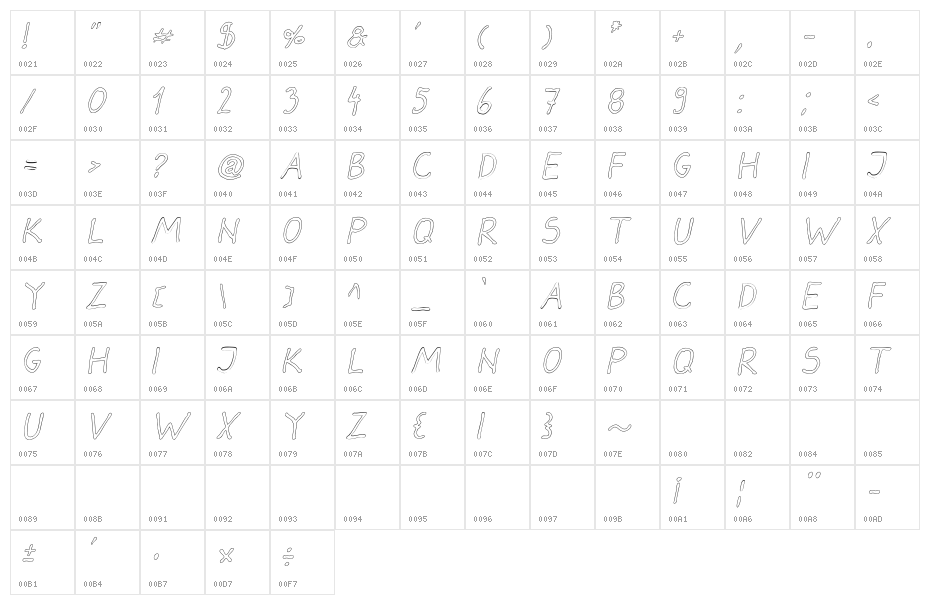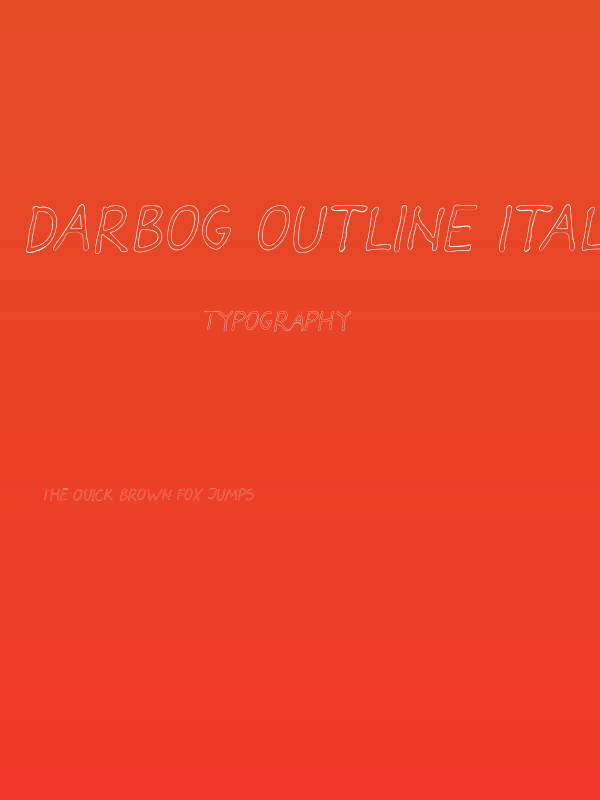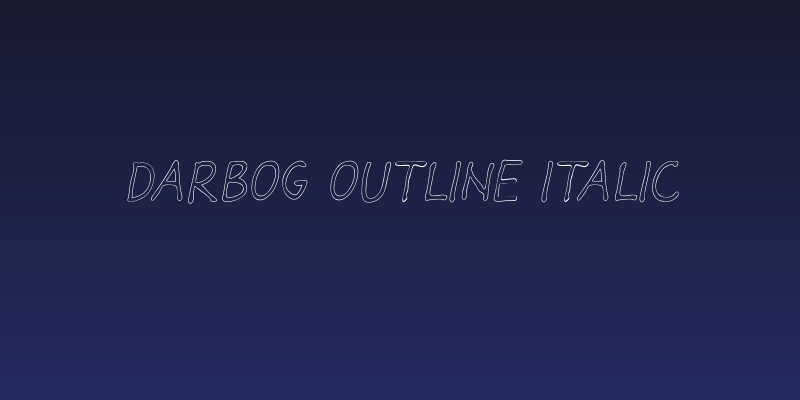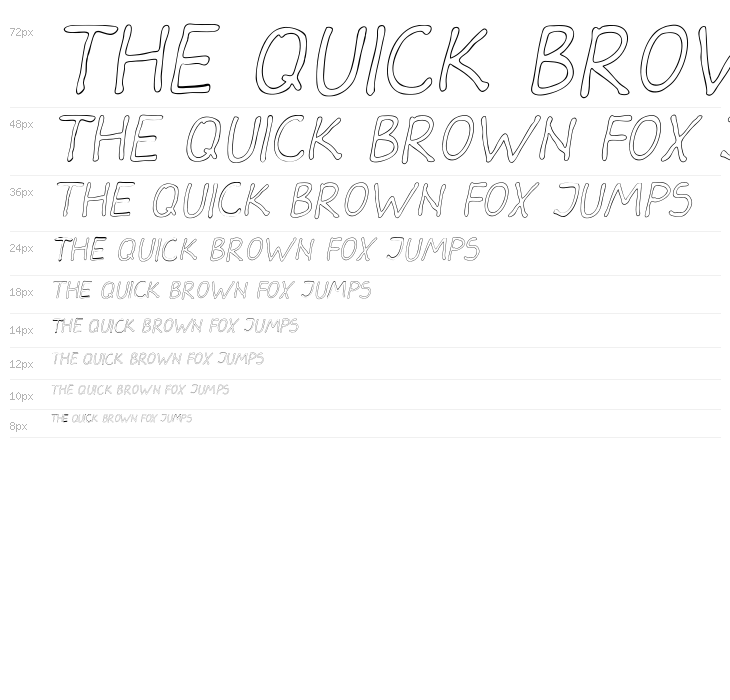
Darbog outline Italic Font
Darbog outline Italic Description
This font features an outlined, italic style that gives it a unique and modern appearance. The characters are slightly slanted, adding a dynamic and fluid feel to the text. The outlines are consistent in thickness, providing a uniform look across all characters. The uppercase and lowercase letters maintain a cohesive style, with smooth curves and clean lines. Numbers and special characters are designed to match the overall aesthetic, ensuring versatility in various design contexts. This font is particularly suitable for projects that require a contemporary and eye-catching look.
| Proposed Projects | Ideal for branding, posters, digital art, and modern editorial design. |